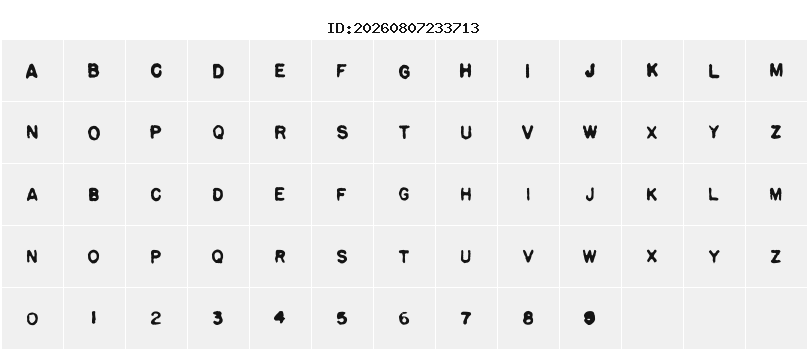
Pulp plain Preview
• Font Name: Pulp plain
• Full Font Name: Pulp plain
• Version: Version 1.00 February 26, 2011, initial release
• Character Count: 87
• Description: This font was created using Scanahand from High-Logic.com
About Pulp plain.ttf
Pulp plain.ttf is a modern, elegant sans-serif font designed for ultimate readability and visual harmony. Perfect for branding, headlines, web design, and print materials.